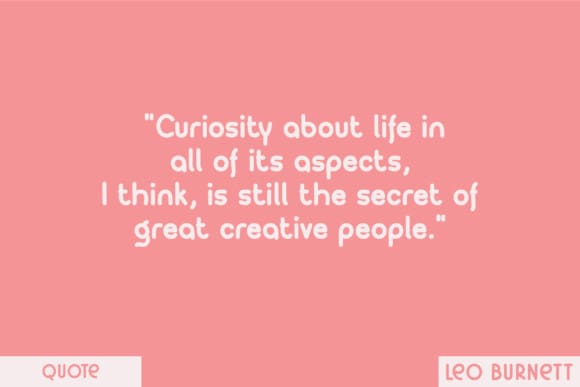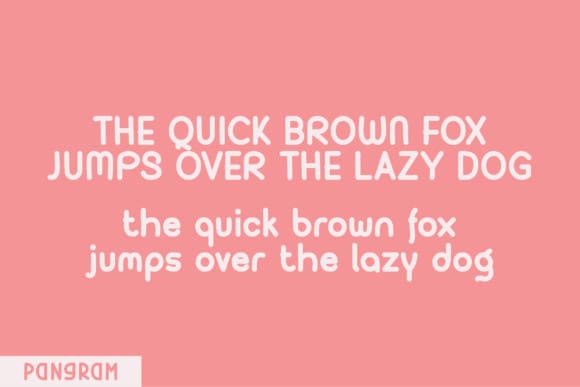
Fluffy Kitten Font
Fluffy Kitten feels playfully nostalgic and delivers an incredible vintage aesthetic. Use this serif font to add that special retro touch to any design idea you can think of!